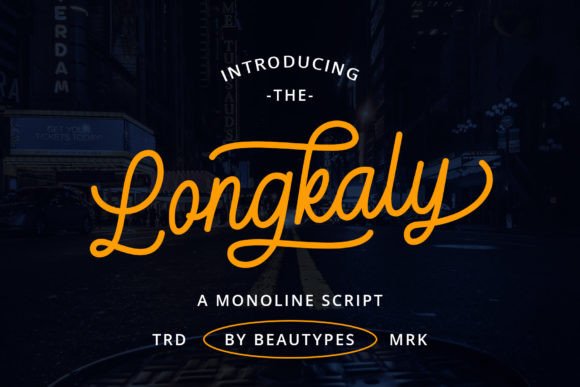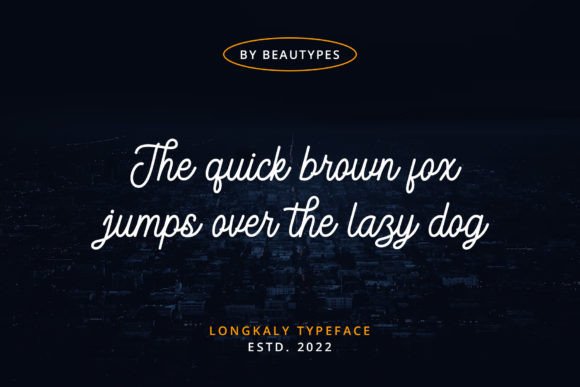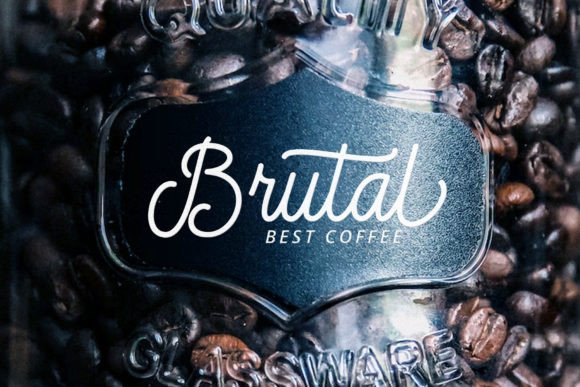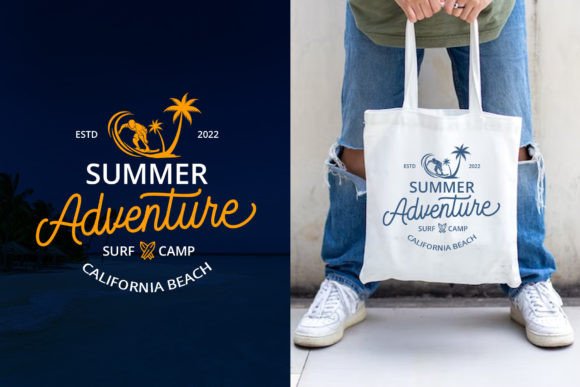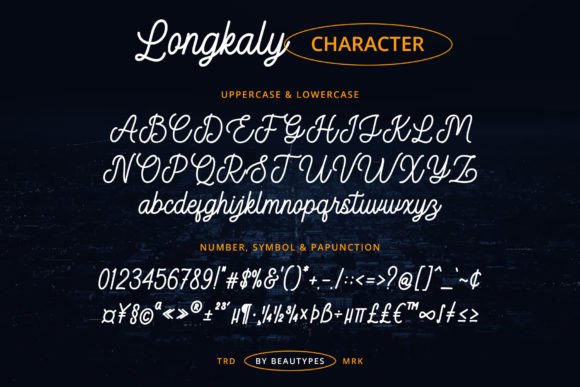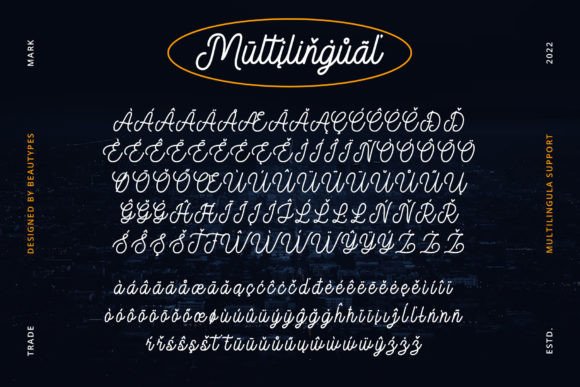
About Longkaly Font
**Longkaly – Vintage Monoline Font**
Longkaly is a vintage-inspired monoline font that exudes a classic and timeless charm. With its unique aesthetic, Longkaly can enhance a wide range of design projects. Here are some key features and potential applications for Longkaly:
1. **Vintage Typography:** Longkaly is specifically designed to evoke a vintage and retro vibe. Its monoline style and classic appearance make it an excellent choice for creating vintage-inspired typography.
2. **Apparel and T-Shirts:** Use Longkaly to design vintage-style t-shirts, apparel, and merchandise. It can add a nostalgic and classic touch to clothing designs.
3. **Logos and Branding:** Create distinctive logos and branding materials with Longkaly. Its vintage look can help establish a sense of heritage and authenticity for your brand.
4. **Labels and Packaging:** Longkaly is well-suited for product labels and packaging design. It can make your products stand out on the shelves with its retro appeal.
5. **Posters:** Design posters for events, concerts, or promotions using Longkaly’s vintage typography. It can capture the essence of a bygone era and create a memorable visual impact.
6. **Magazines and Editorial:** Incorporate Longkaly into magazine layouts for headlines, subheadings, or feature articles. Its classic style can enhance the overall design.
7. **Quotations and Art Prints:** Longkaly can be used to create inspirational quotes, art prints, or framed wall art. Its vintage appearance adds character to any printed piece.
8. **Packaging and Branding:** If you’re working on packaging for artisanal or nostalgic products, Longkaly can help convey a sense of craftsmanship and authenticity.
9. **Editorial Design:** Use Longkaly in book covers, chapter titles, or editorial layouts for publications that aim to capture a vintage or retro aesthetic.
10. **Merchandise Design:** Whether you’re designing mugs, tote bags, or other promotional items, Longkaly can infuse a sense of nostalgia into your merchandise.
11. **Event Promotion:** Design flyers, banners, or social media posts for vintage-themed events and parties. Longkaly’s typography can set the mood and theme effectively.
12. **Quotes and Social Media Graphics:** Create engaging social media graphics, especially for posts that revolve around historical topics or vintage aesthetics.
13. **Website Headers:** Use Longkaly for website headers or banners on sites related to antiques, vintage collectibles, or historical content.
14. **Film and Theater Posters:** Longkaly can be a great choice for designing posters for period dramas, classic film screenings, or vintage-themed theatrical productions.
15. **Craft Projects:** Incorporate Longkaly into DIY craft projects, scrapbooking, and handmade greeting cards to add a nostalgic touch.
Longkaly’s vintage monoline style offers a versatile typographic choice for projects that seek to evoke a sense of history, nostalgia, and classic charm. Whether you’re working on commercial branding, personal crafts, or event promotions, this font can help you achieve a distinctive and memorable look.